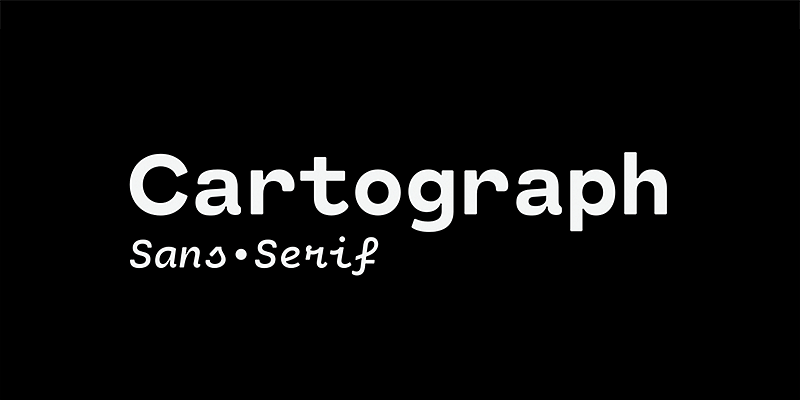
Cartograph CF Font Free Download is a monospaced typeface that balances technical precision with warmth and personality. Designed with developers, designers, and writers in mind, this font is perfect for code editors, documentation, technical UI design, terminal themes, and any layout where a clean, structured, and character-aligned aesthetic is needed.
Cartograph CF Font Free Download features crisp lines, rounded corners, and carefully tuned spacing, making it highly readable and visually appealing over long sessions of reading or coding. Unlike many monospaced fonts, Cartograph offers a touch of friendliness, making it feel approachable while still maintaining a professional tone.
It includes support for Latin scripts, ligatures, and a wide range of weights—ideal for syntax highlighting, accessible UI design, and polished editorial use.